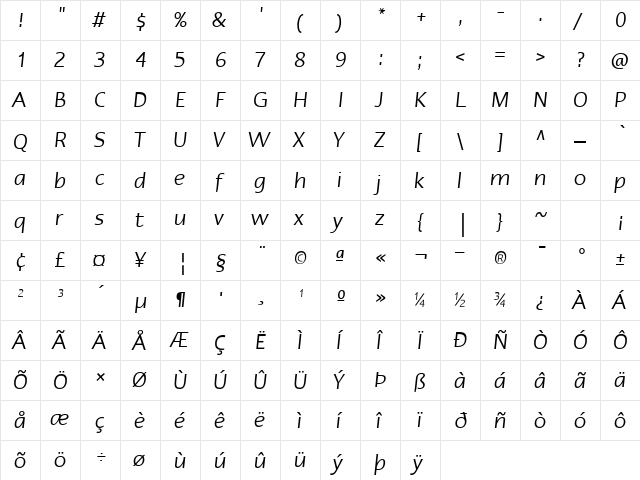
LTErgo Italic
Design Context for LTErgo Typeface
LTErgo is a composed and adaptable typeface that performs quietly and consistently across a wide range of design contexts. Its italic angle brings a sense of urgency and motion to the letterforms.
Pro Tip: Use LTErgo for emphasis, pull quotes, and subheadings where its slanted energy can add rhythm to the layout.